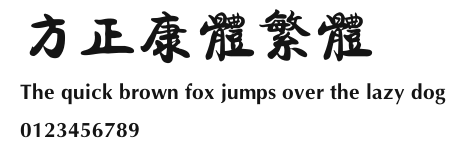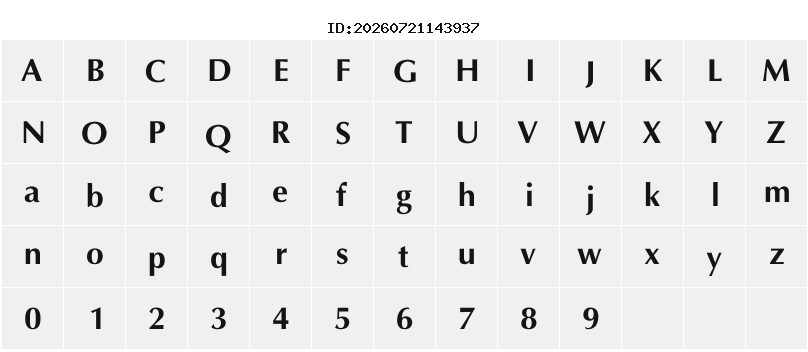
方正康体繁体 Preview
• Font Name: 方正康体繁体
• Font ID: Founder:方正康体繁体 Regular
• Full Font Name: 方正康体繁体
• PostScript Name: FZKANGFW--GB1-0
About 方正康体繁体.ttf
方正康体繁体.ttf is a modern, elegant sans-serif font designed for ultimate readability and visual harmony. Perfect for branding, headlines, web design, and print materials.